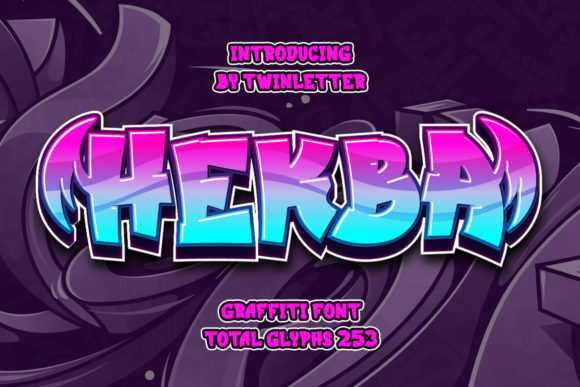
Introducing Hekba, the graffiti-inspired poster font that demands attention! Its thick letters scream confidence and boldness, adding a touch of street art to your designs. Hekba's got an attitude that's perfect for t-shirts, sportswear, posters, and more, allowing your words to make a statement and leave an impression.
Hekba isn't just any display font; it's a fierce representation of urban culture. Its rough edges and dynamic curves capture the energy of the streets, giving your designs a raw and edgy appeal. Whether you're creating eye-catching logos, advertisements, clothing, or posters, Hekba will make sure your message grabs eyeballs and leaves a lasting impact.
With Hekba, you're in control of the narrative. This font's versatility knows no bounds, allowing you to express yourself freely. Create bold titles that scream for attention, or craft intricate designs that showcase your artistic flair. Hekba is the perfect tool for those who dare to stand out and make a statement.
But wait, there's more! Hekba comes PUA encoded, giving you effortless access to all its glyphs and swashes. Unleash your creativity and explore boundless design possibilities. Experiment with different styles and combinations to create something truly unique and captivating.
So, if you're ready to take your designs to the next level, Hekba is your secret weapon. This graffiti-inspired font is more than just a font; it's a statement of individuality and passion. Download it today and let Hekba bring your creative vision to life, in a way that leaves everyone in awe.